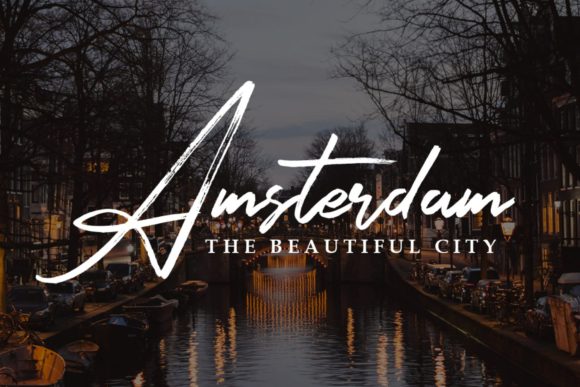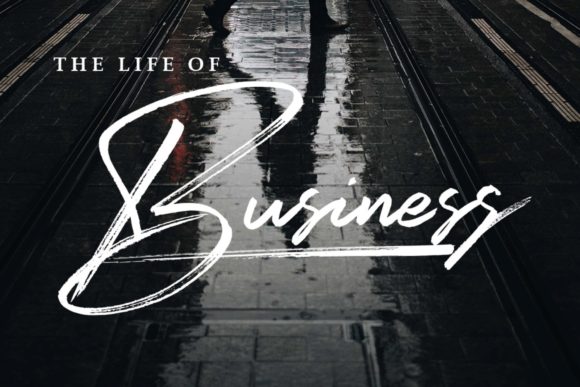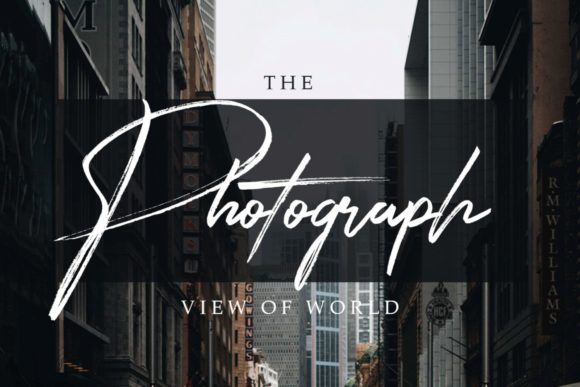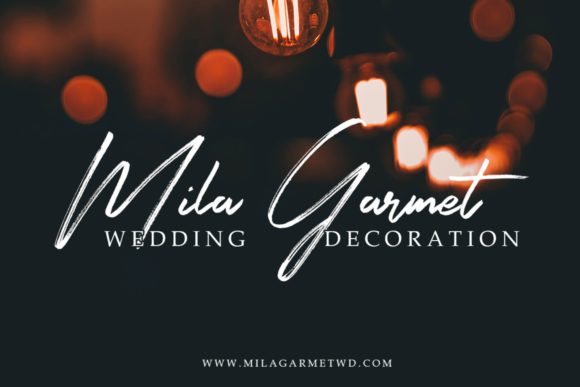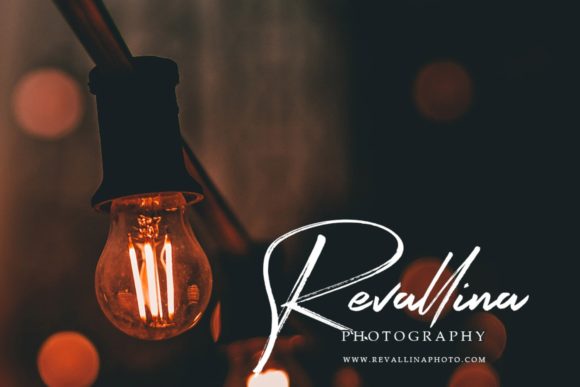
Silhouette Elegant Font
About Silhouette Elegant Font
The Silhouette is a very elegant typeface. It comes with underline swashes that can be paired perfectly and will add a cool and feminine touch to your designs. It’s perfect for adding an organic feel to your signatures, watermarks, business cards, and every other design which needs an elegant touch.